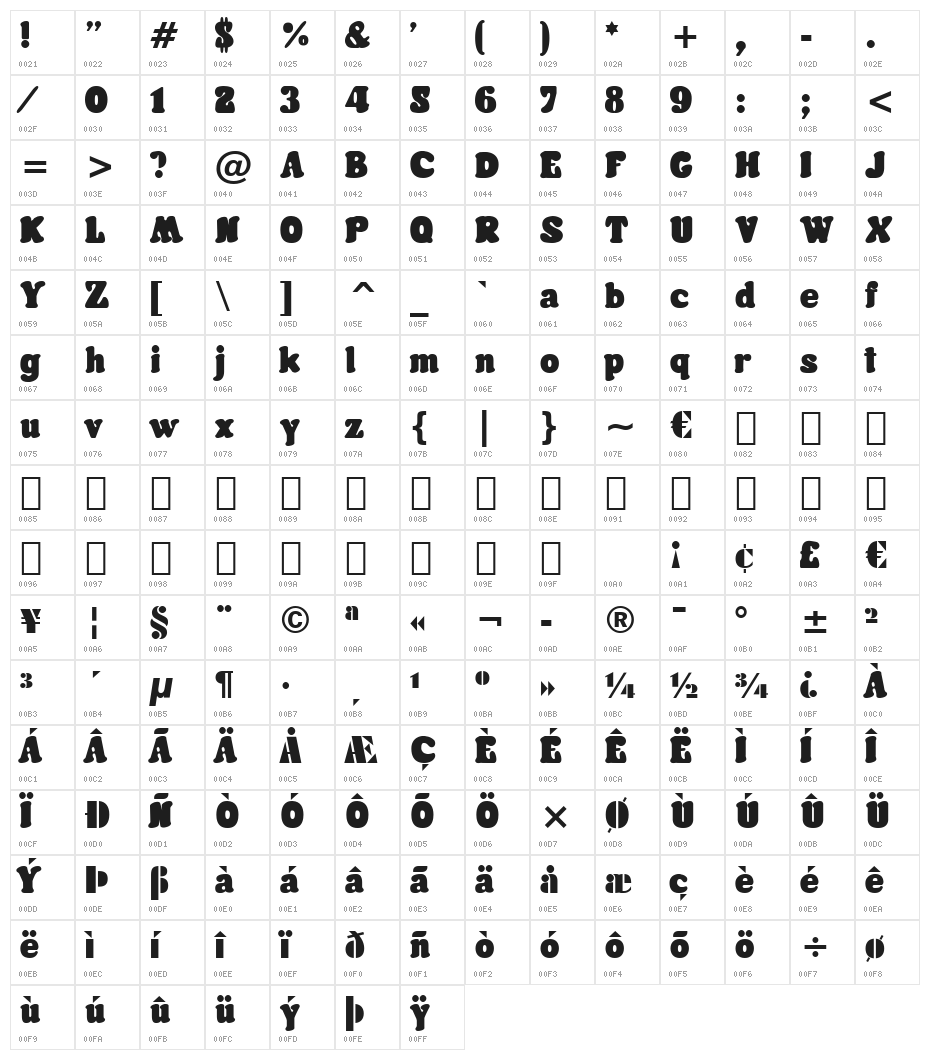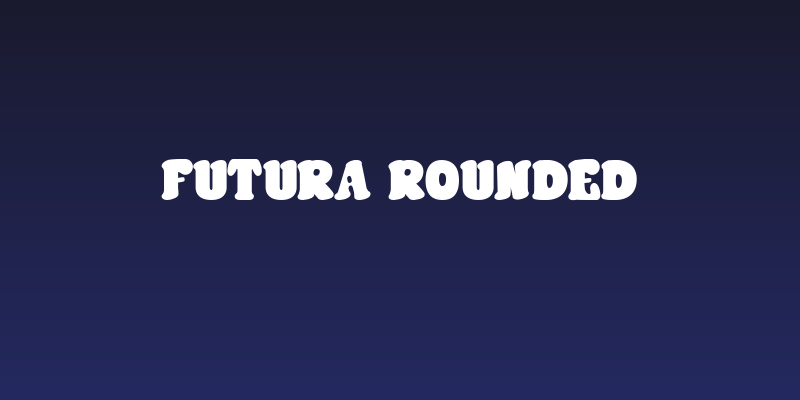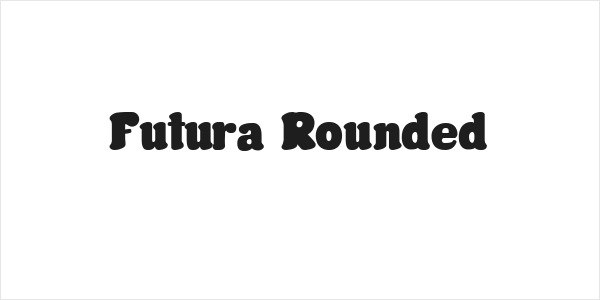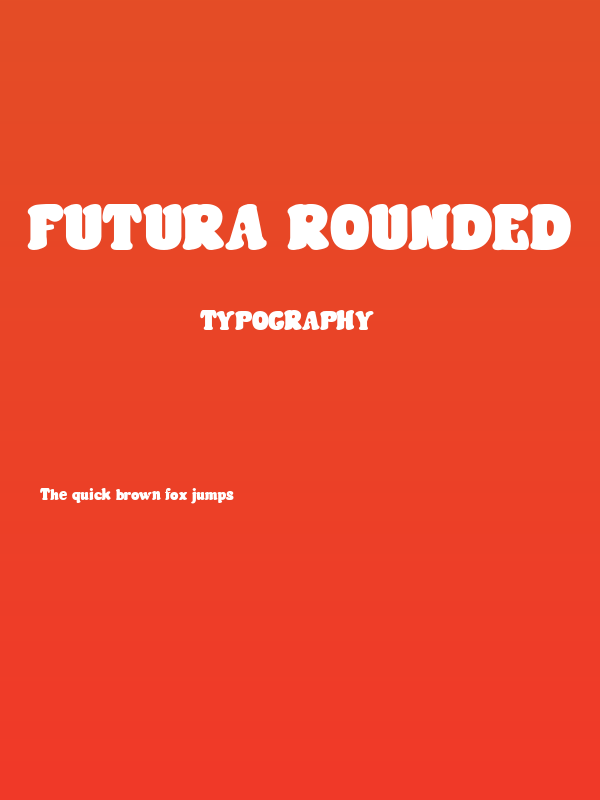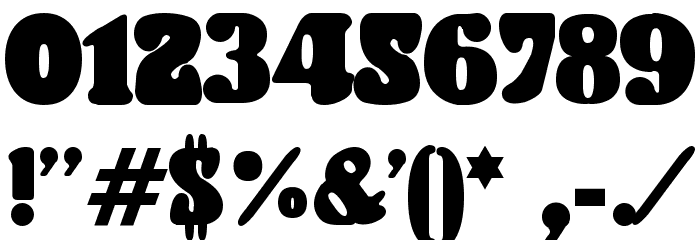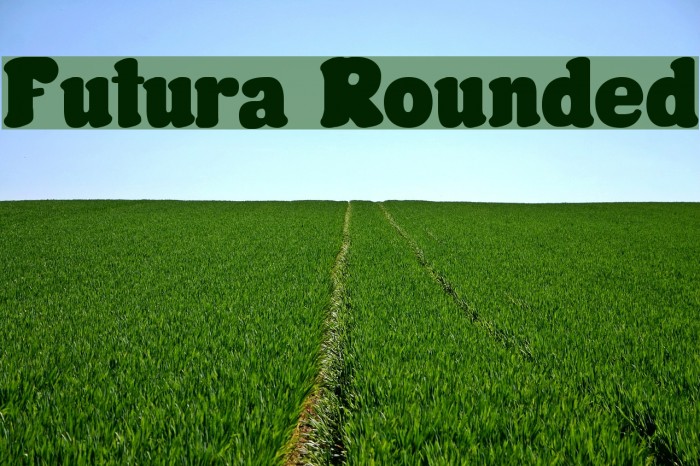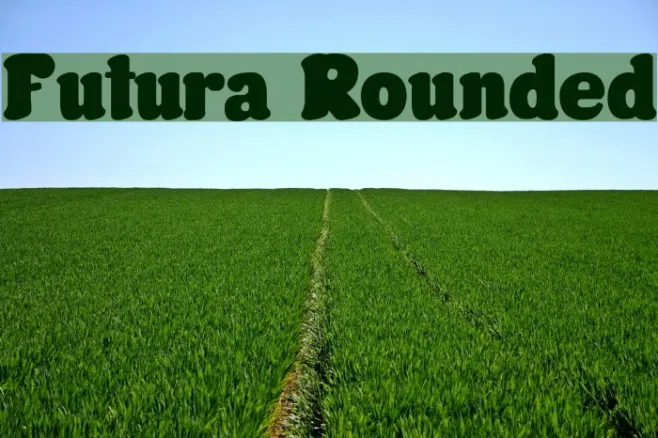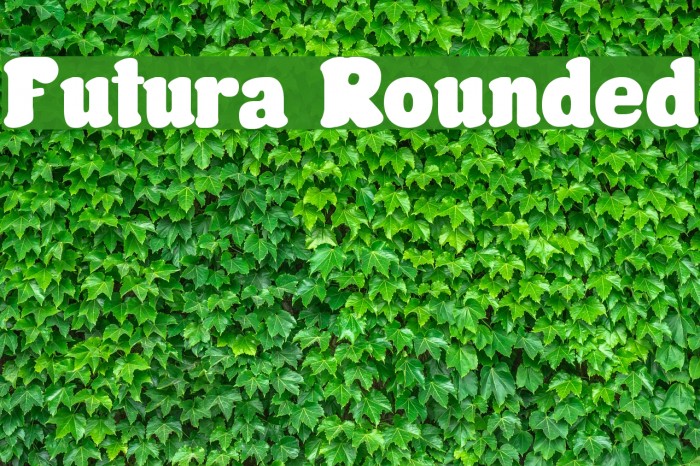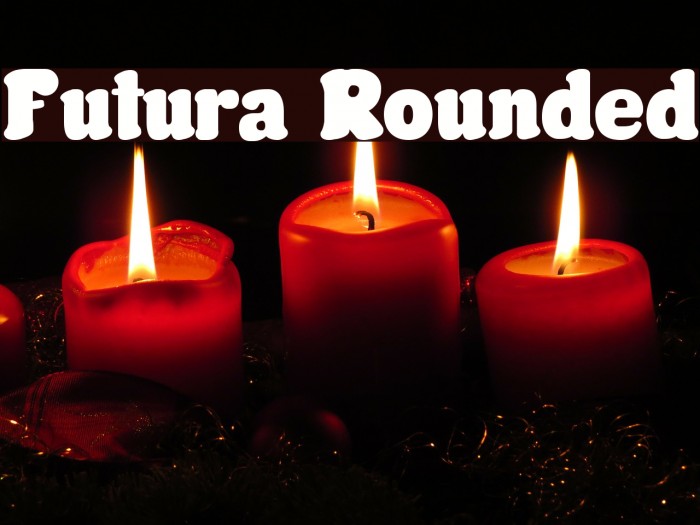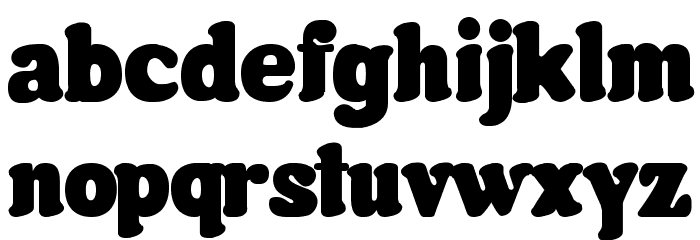
Futura Rounded Font
Futura Rounded Description
This font features a bold and rounded style, characterized by its thick, smooth curves and playful appearance. The letters are uniformly rounded, giving a friendly and approachable feel. The uppercase and lowercase letters maintain consistent proportions, while the numbers and special characters are designed to complement the overall aesthetic. The font's rounded edges soften the impact of the bold weight, making it suitable for a variety of applications where a warm and inviting tone is desired.
| Overall Style | Playful, Modern |
| Use Case | Logos, Headlines, Branding |
| Proposed Projects | Ideal for children's books, playful branding, logos, and advertising that requires a friendly and inviting tone. |